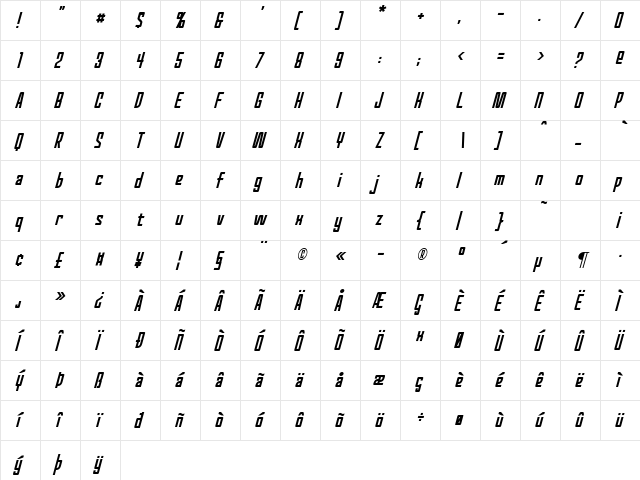
Red World Italic Font Preview
Red World Italic
Red World Italic Font Details
| Foundry | Neale Davidson |
| Designer | Neale Davidson |
Design Context for Red World Typeface
Red World offers clean, dependable letterforms without strong stylistic allegiance, making it a practical choice for designers who need flexibility. The slanted form adds forward momentum and visual energy.
Pro Tip: Try Red World for annotation and caption copy alongside an upright companion — the contrast in angle creates a dynamic but ordered typographic system.